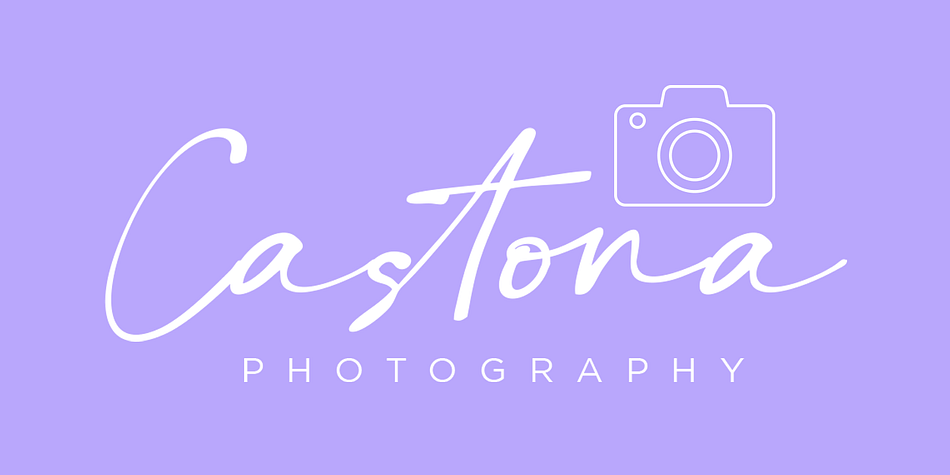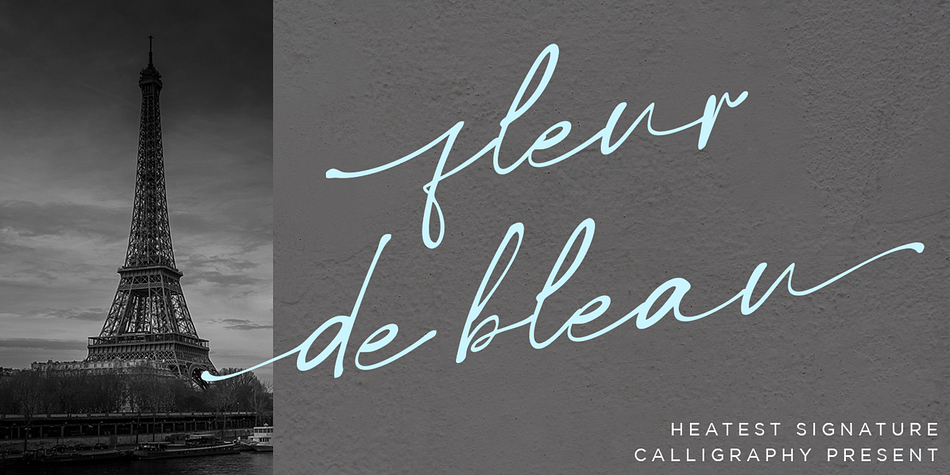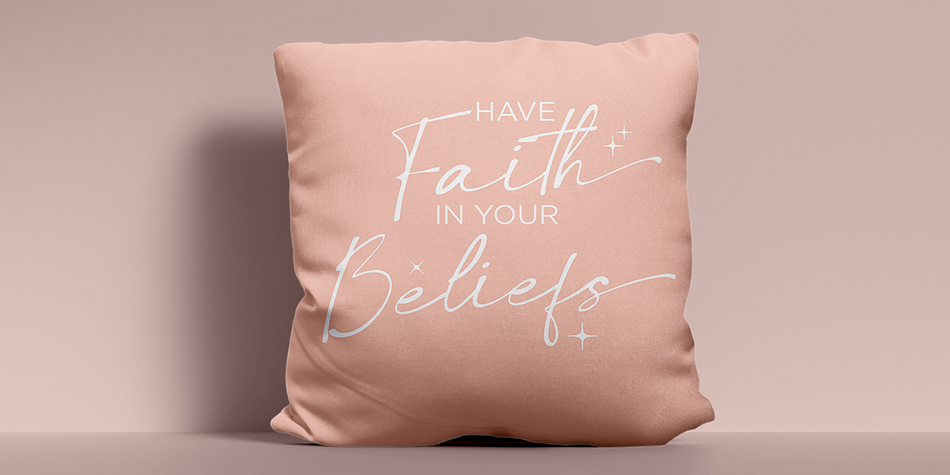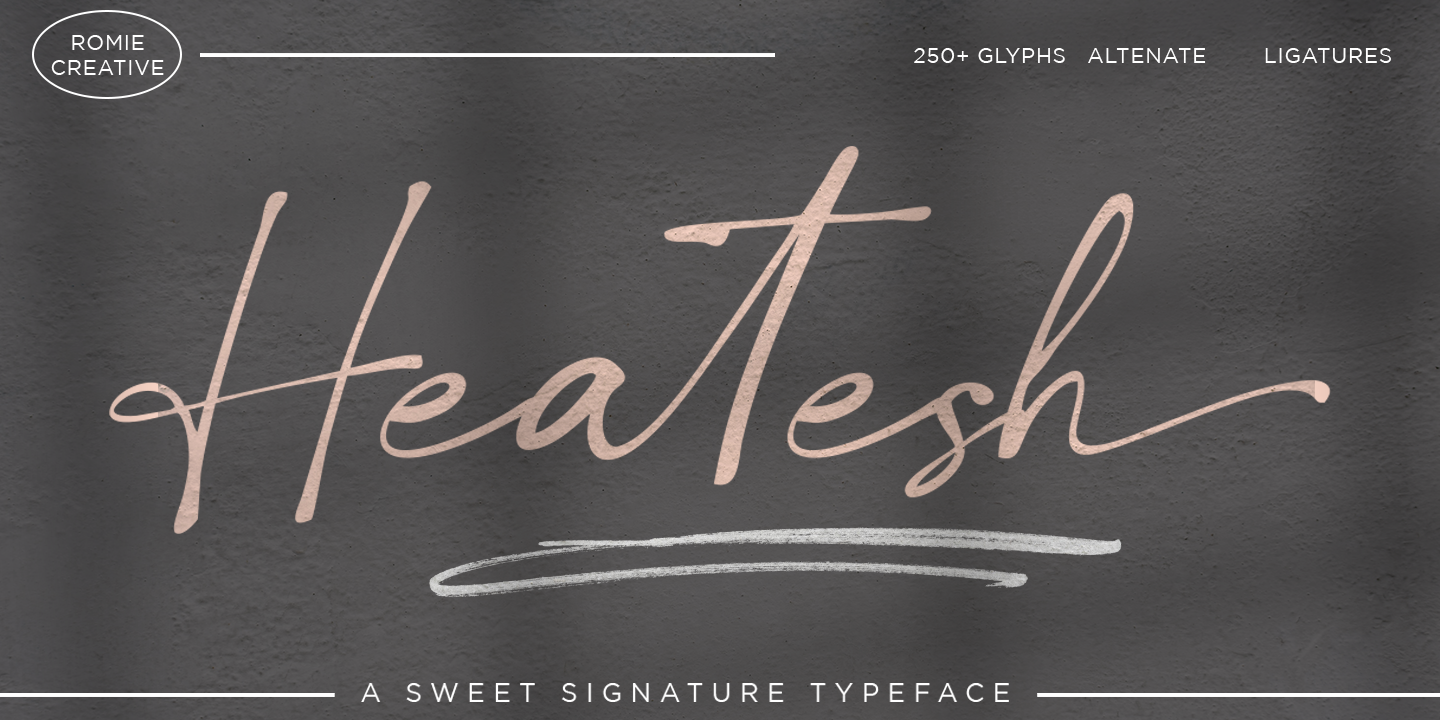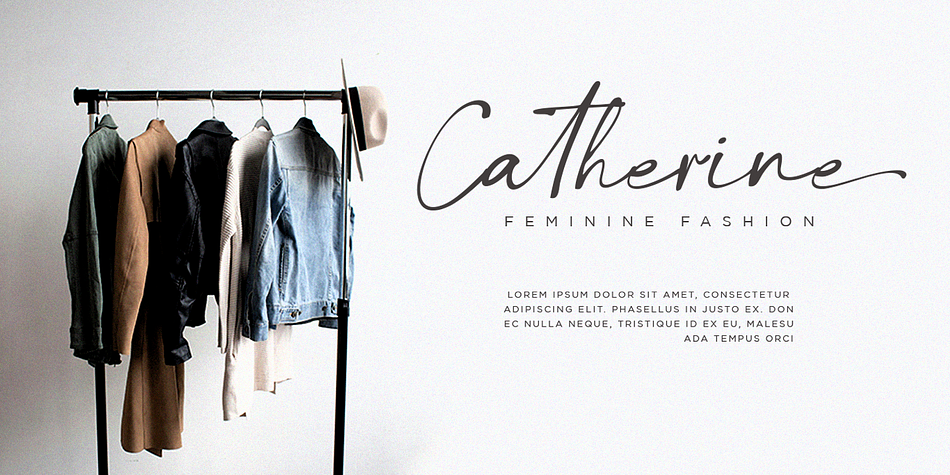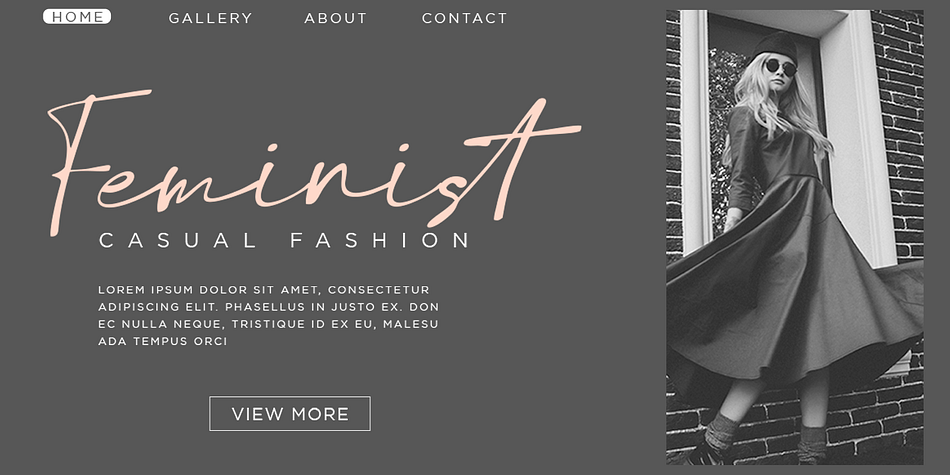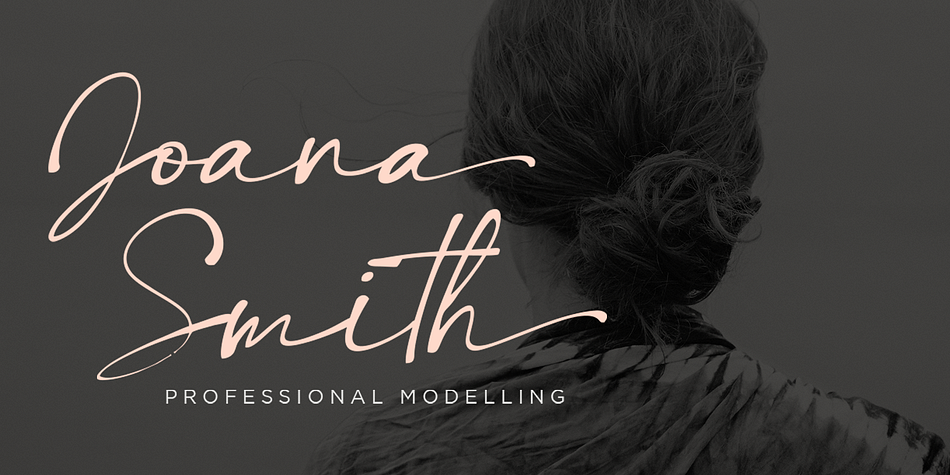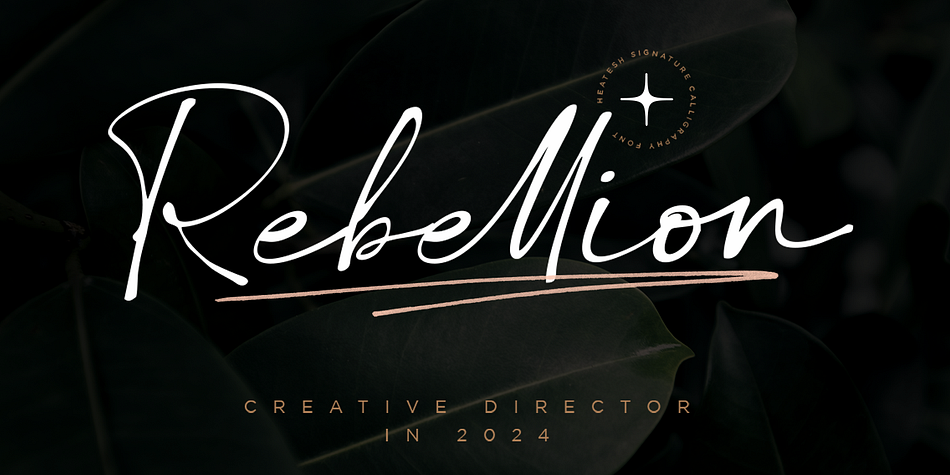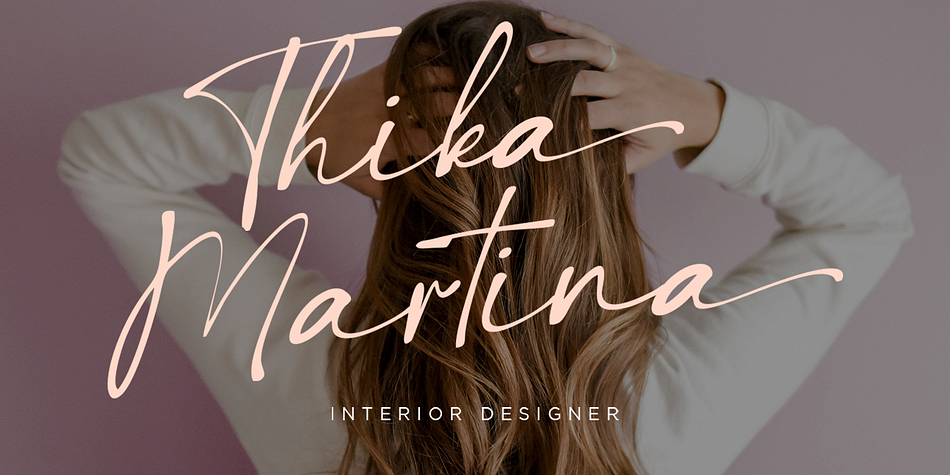
Heatesh
Heatesh is a brush display and modern calligraphy font family published by Romie Creative.
Heatesh is a modern chic Signature Font with magical pressure.
I hope this font perfect for creating signature logos and watermarks for photography studio or wedding invitation,best for initial or branding logo signature .
Heatesh includes full set of beautifull hand lettered uppercase and lowercase letters, numerals, a large range of punctuation and ligatures giving realistic hand-lettered style.